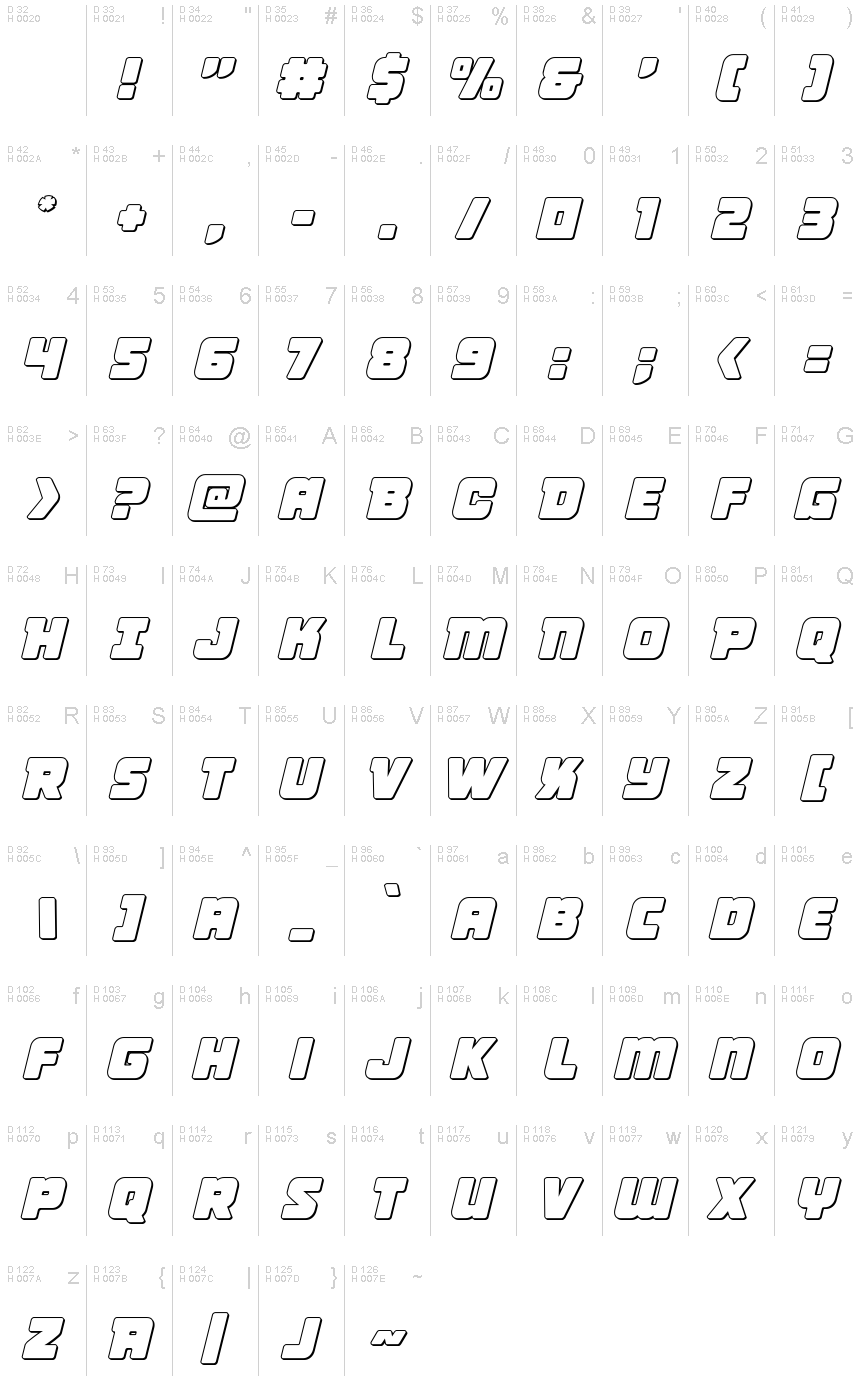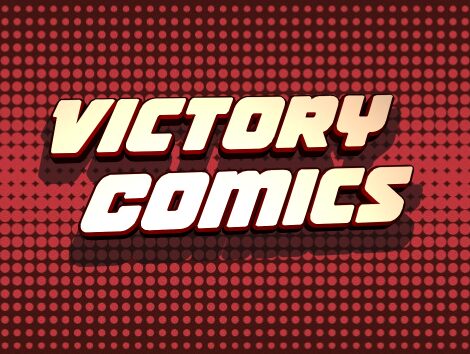
Victory Comics Outline SemItal
Victory Comics Outline SemItalic font by Iconian Fonts is a display typeface bursting with energy and dynamism. Its angular, italicized design injects playfulness, creating an engaging visual experience. Perfectly suited for bold statements, this 3D outline font grabs attention with its vibrant personality.
Ideal for comic book titles, gaming interfaces, poster headlines, and logo designs. Use it in branding projects requiring strong visual impact or in advertising materials that need to stand out. Magazine covers, website banners, creative packaging, album art, video titles – the possibilities are endless with this compelling typeface!